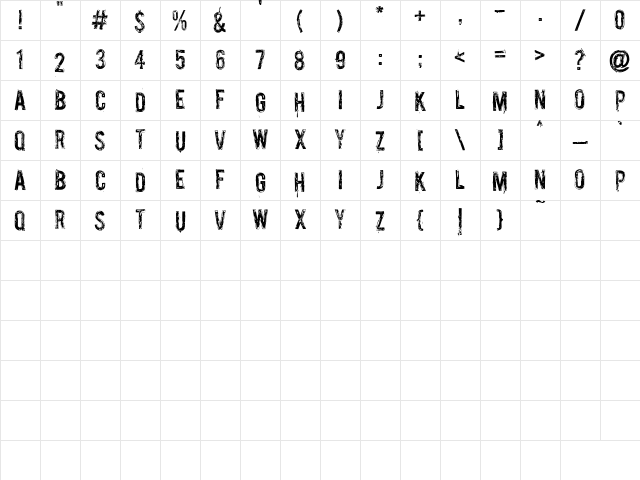
Palsu Regular Free Font
Palsu Regular
Design Context for Palsu
Palsu is a composed and adaptable typeface that performs quietly and consistently across a wide range of design contexts.